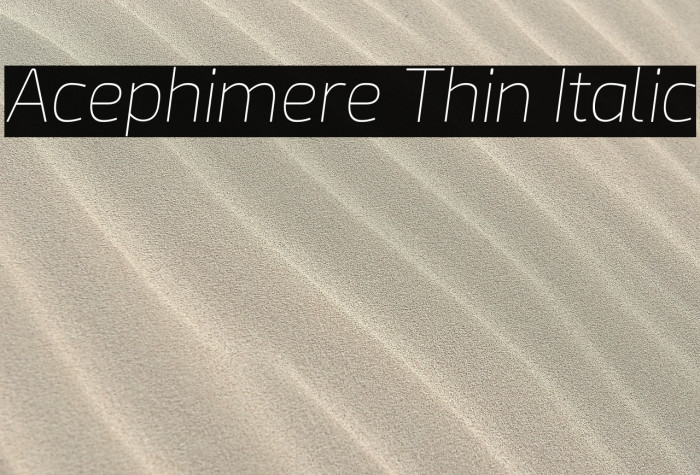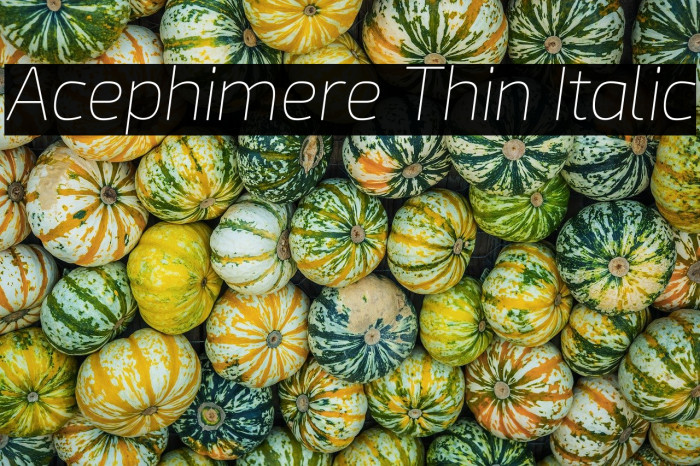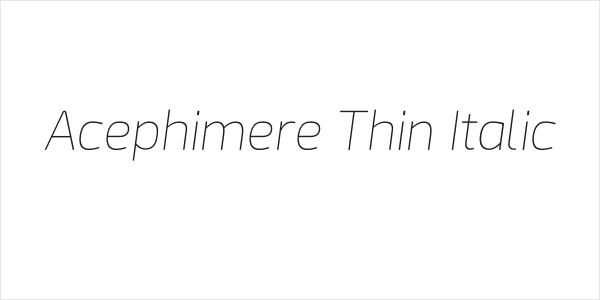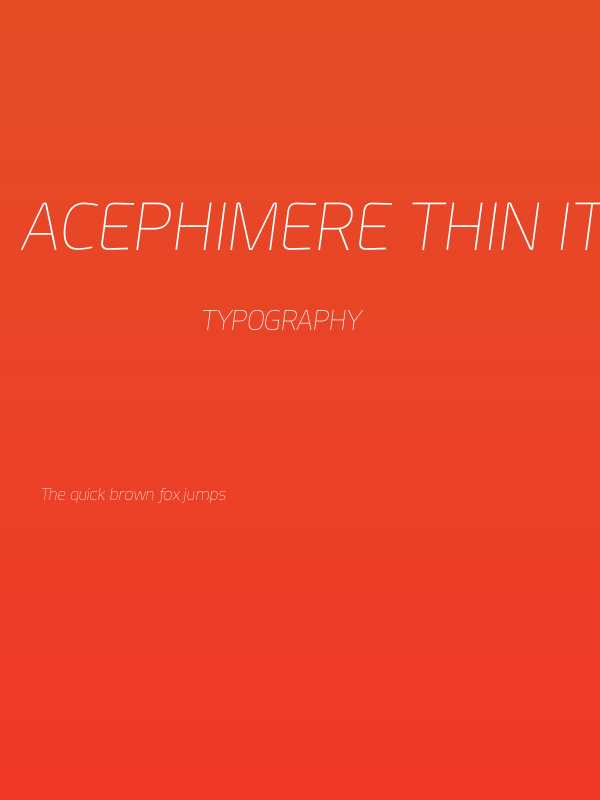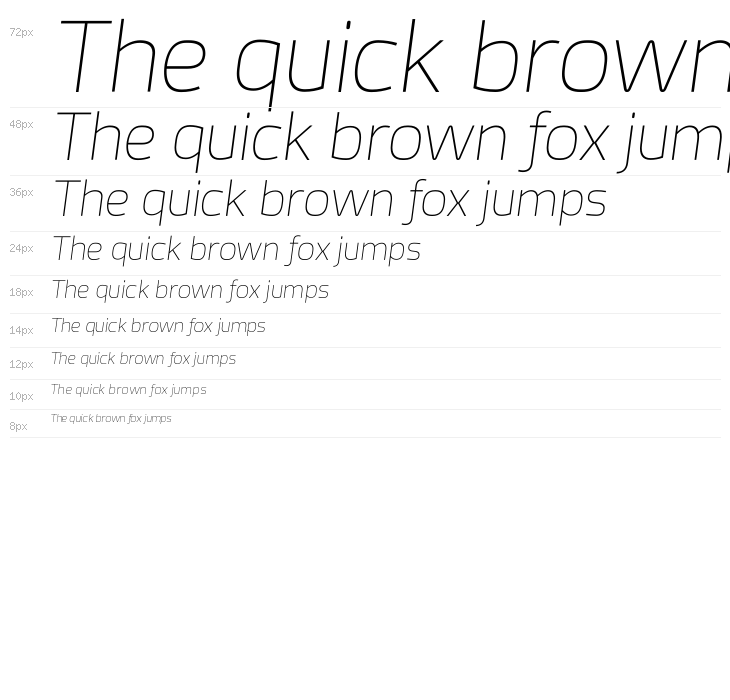
Acephimere Thin Italic Font
Acephimere Thin Italic Description
This font features a sleek and modern design with thin, elegant lines that give it a sophisticated and airy appearance. The characters are slightly italicized, adding a dynamic and fluid feel to the text. The uppercase and lowercase letters maintain a consistent style, with smooth curves and sharp angles that enhance readability. The numerals and special characters are designed to match the overall aesthetic, ensuring a cohesive look across all text elements. This font is ideal for projects that require a contemporary and minimalist touch.
Use CaseHeadlines, Logos, Editorial design
Proposed ProjectsIdeal for modern branding, minimalist design projects, fashion magazines, and elegant invitations.